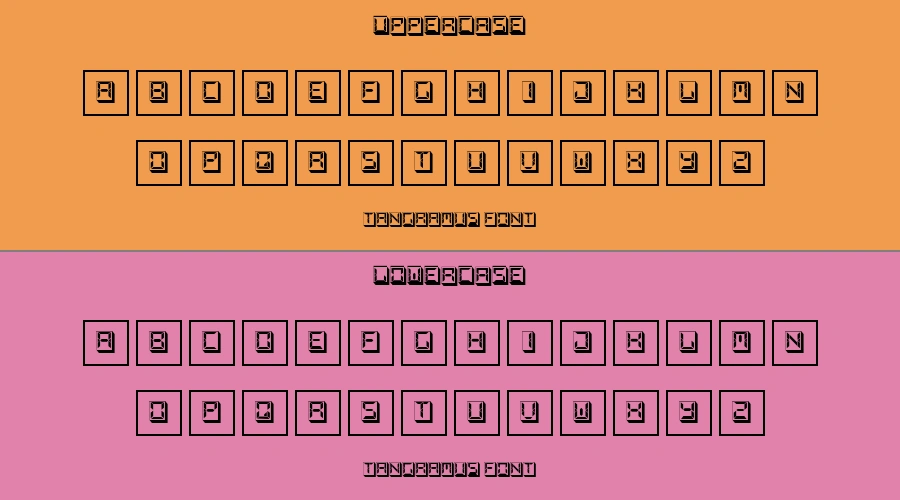
About Tangramus Font
Tangramus Font embodies typographic excellence through its masterful combination of precise alignment and system consistency. Created for packaging hero, this typeface delivers exceptional tradition and user trust across all applications. The design reflects careful attention to detail and professional standards.
Advanced capabilities include distinctive ligatures and versatile numerator/denominator, giving designers creative control. When used in featured quotes, Tangramus Font exhibits remarkable headline impact. The harmonious balance between stroke modulation and regulatory compliance sets this typeface apart.